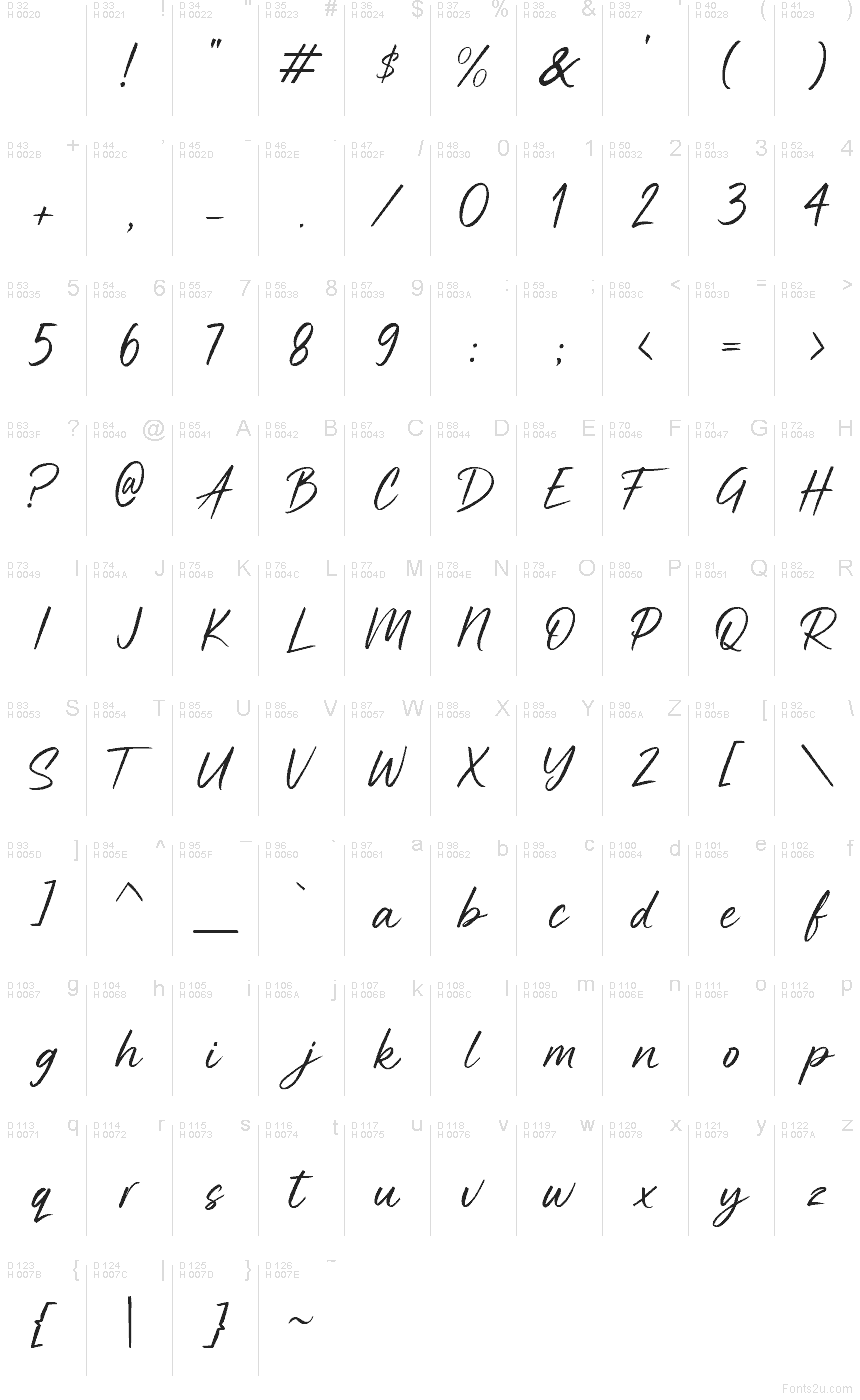
Reflet desOndes
Reflet des Ondes font by BlackFridayFont FMF is a free handwritten script typeface that solves the classic “too fancy to read” script problem. Its flowing, slightly slanted forms feel like ink gliding across smooth paper, but the letters stay open and clearly shaped, so words don’t collapse into a tangle of loops. There’s just enough flourish to feel romantic and personal, without the drama overpowering your message.
Using Reflet des Ondes, this free font shines on wedding stationery, save-the-dates, beauty and lifestyle branding, boutique logos, product packaging, and soft social media graphics. The rhythm between letters is even and calm, giving quotes and headlines a graceful continuity that feels both modern and handwritten. Pair it with a clean sans serif for body copy and keep Reflet des Ondes slightly larger for names, titles, or key phrases to let its script character breathe.